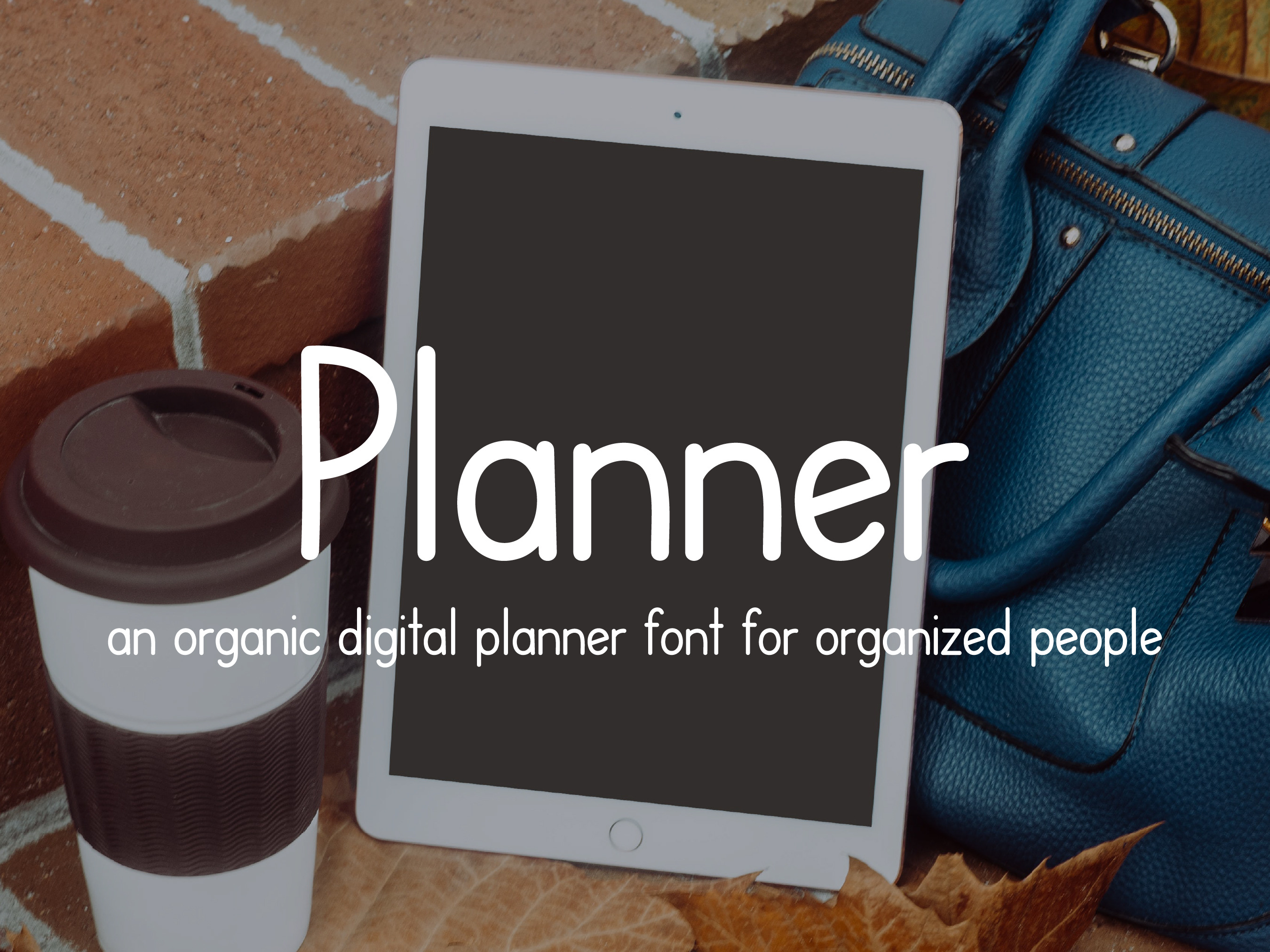
Planner Font
Planner is a neat handwritten font that is perfect to use in a digital planner or a blog. It is a beautiful, simple, and legible font that is ideal for sublimation or vinyl.
Great for branding, crafting, display font, wall art, handcrafted, hand written, handwritten, digital planner, and so much more.